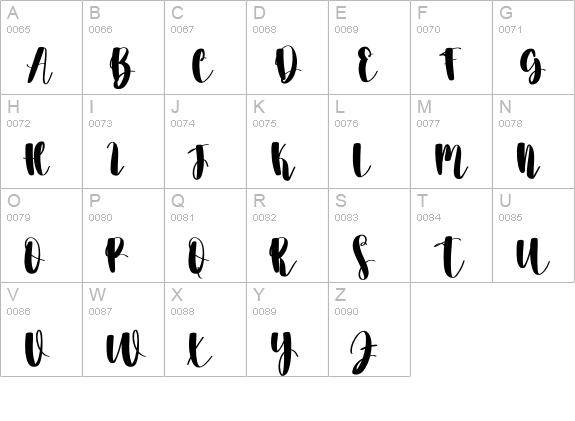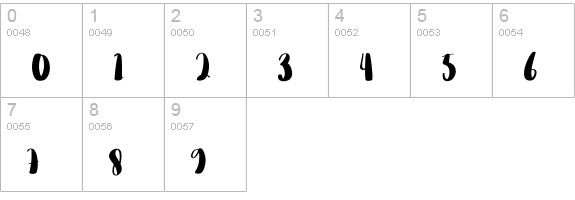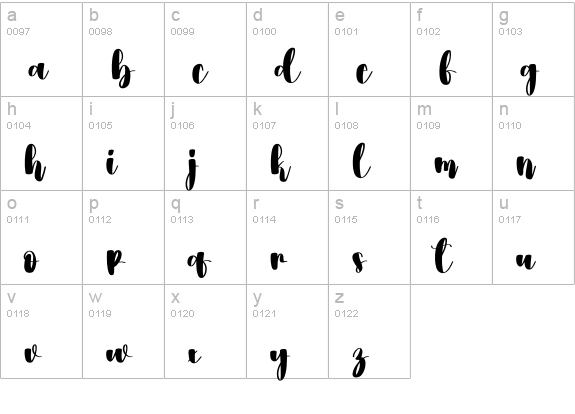
School is a free for personal use font in the Script > Handwritten category, designed by scratchones. It has been downloaded 5 times and is available for Windows, Mac and Linux.
The School font is a charming typeface that exudes whimsy and playfulness, making it the perfect choice for educational materials, children's books, and school-related projects. With its friendly and approachable appearance, this font adds a touch of fun to any design. Best of all, the School font is available for free download at FontsMarket.com, making it easily accessible for all your creative endeavors. Embrace the youthful spirit of this delightful font and bring a touch of joy to your projects today!